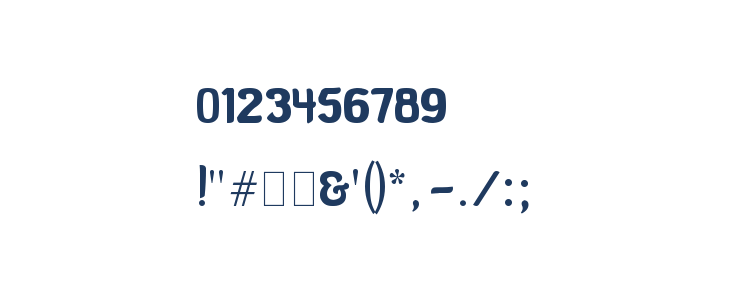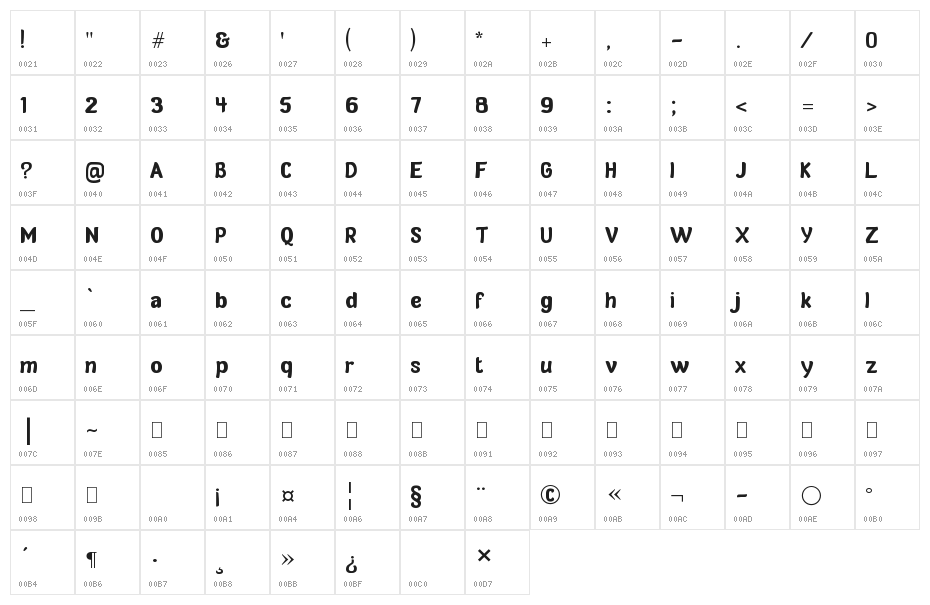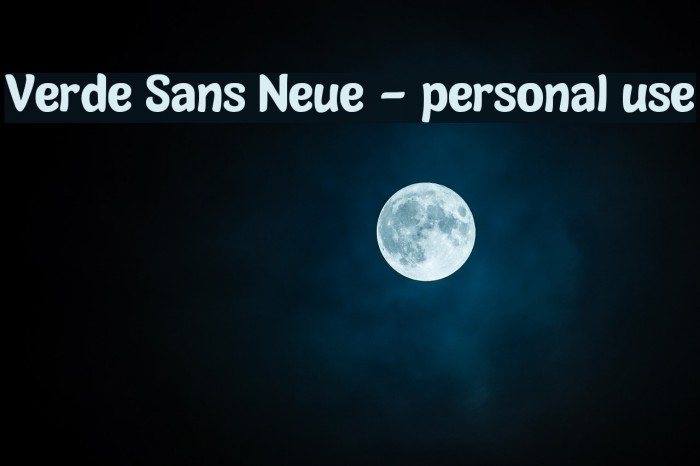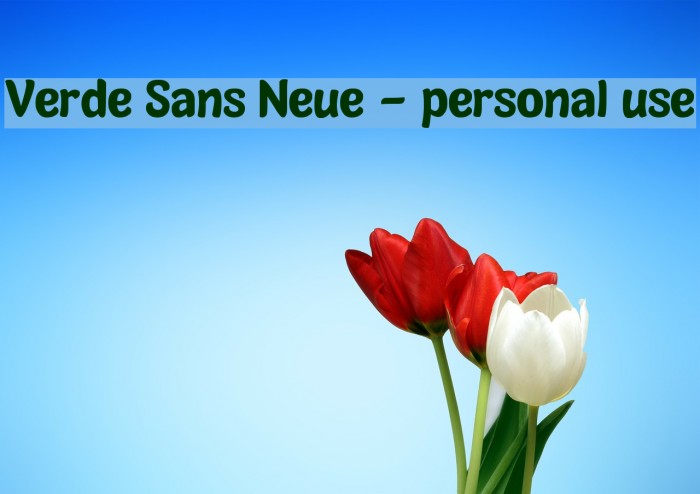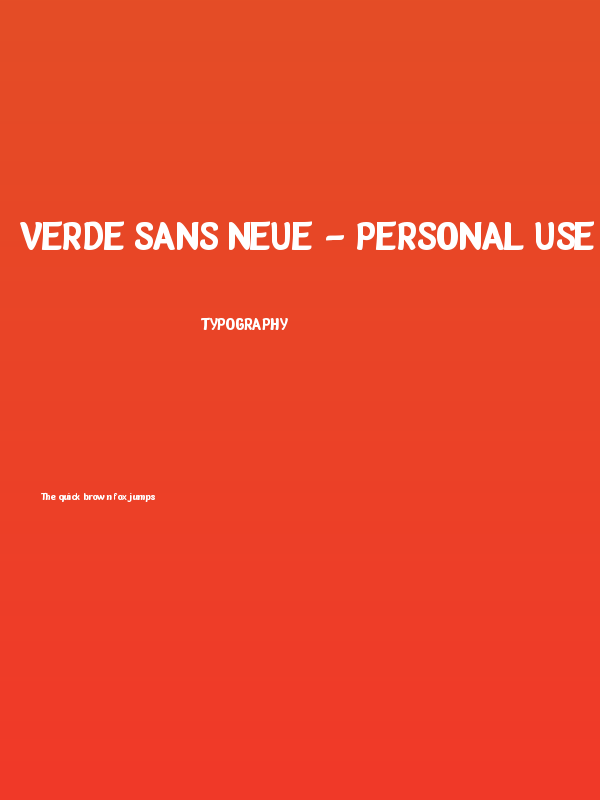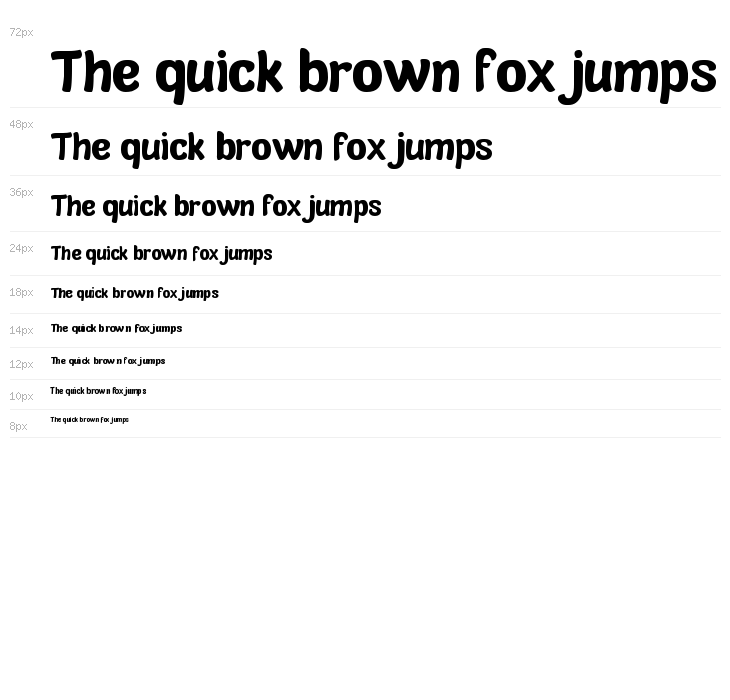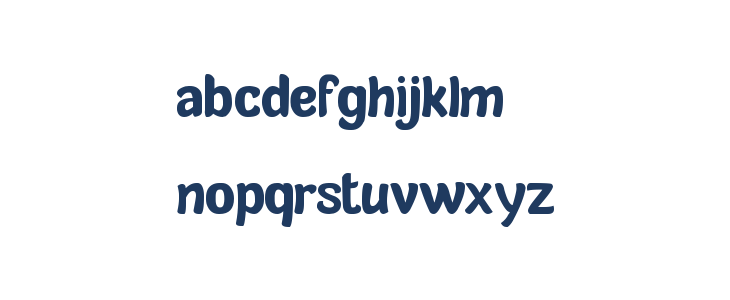
This font features a playful and rounded design with a bold presence, making it highly legible and eye-catching. The characters are well-proportioned with a slight slant, adding a dynamic feel. The uppercase letters are robust and slightly condensed, while the lowercase letters maintain a consistent flow with smooth curves. The numerals are clear and uniform, ensuring readability. Special characters are designed with the same playful style, offering versatility in various contexts. The overall design is modern and friendly, suitable for a wide range of creative applications.
| Proposed Projects | Ideal for children's books, playful branding, casual invitations, and creative posters. |